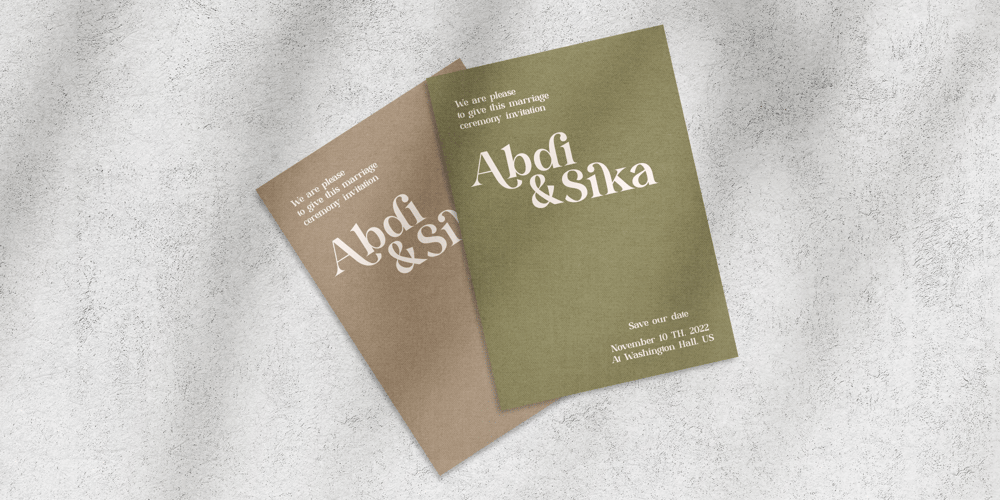
After Modish Font Family was designed by Sarid Ezra, Dzikrul Aulia and published by Bale Type. After Modish contains 1 styles and family package options. After Modish is a modern bold serif with bunch of of stylish ligatures and alternates. You can use this font for many purposes. It’s suitable for branding, quotes, or wedding invitation. With many choices of alternates, you can make your design more stand out! After Modish also support Multi Language.